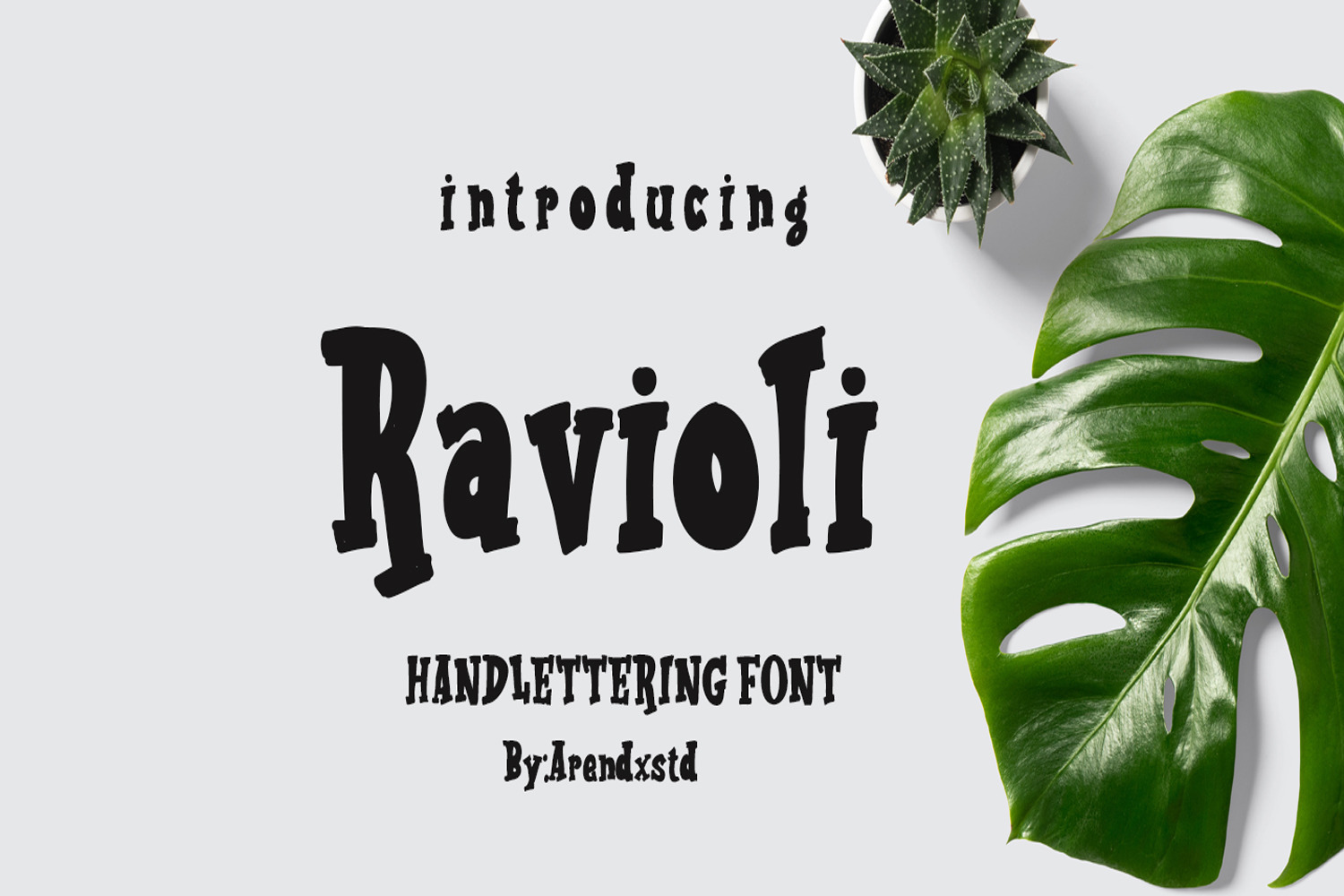
Ravioli Display Font 2 Style
Ravioli combines fun fonts that will easily turn any design idea into a stand out! Fall in love with this adorable and versatile font family!